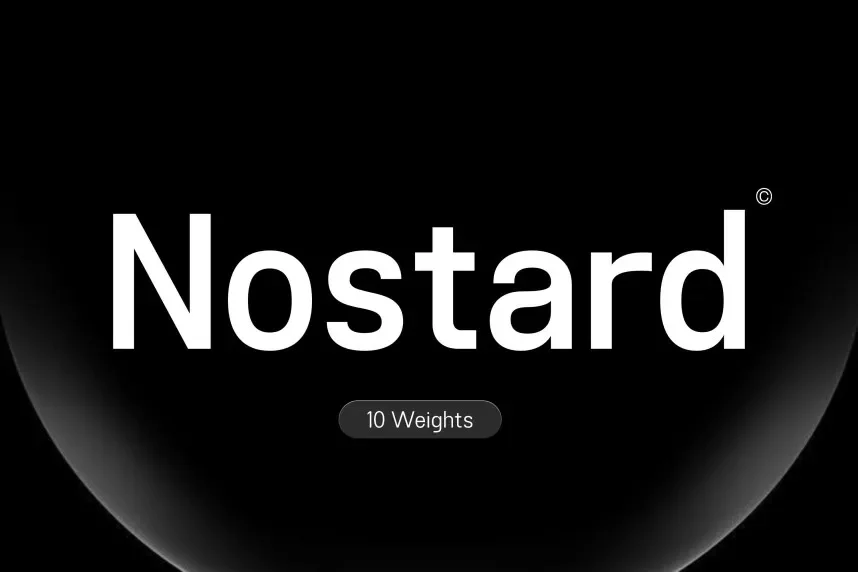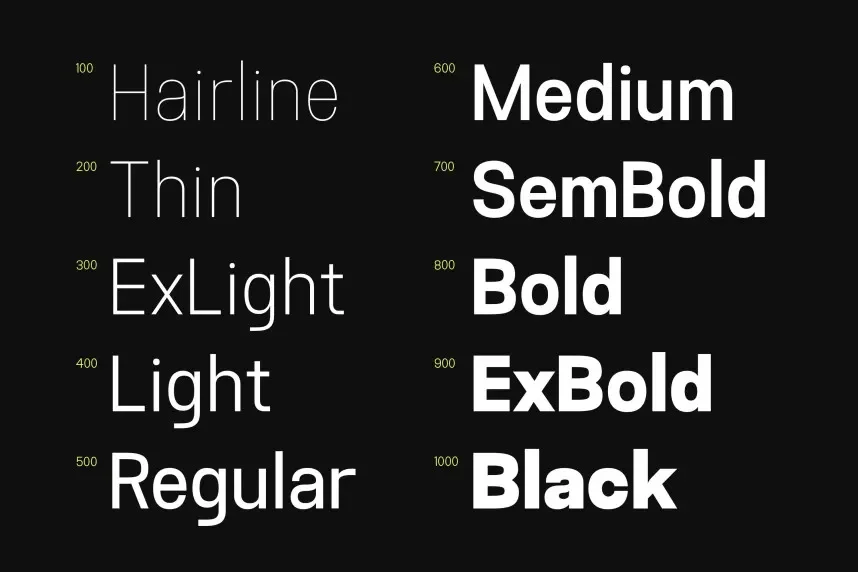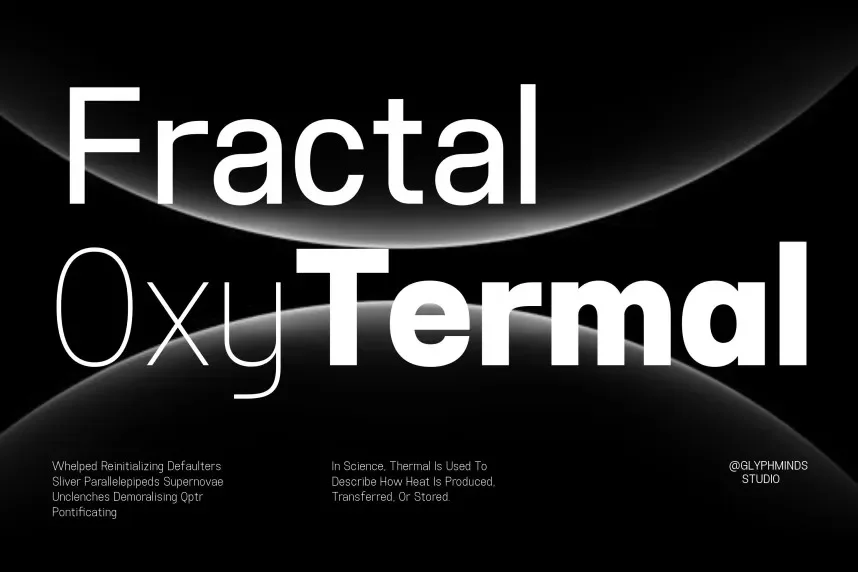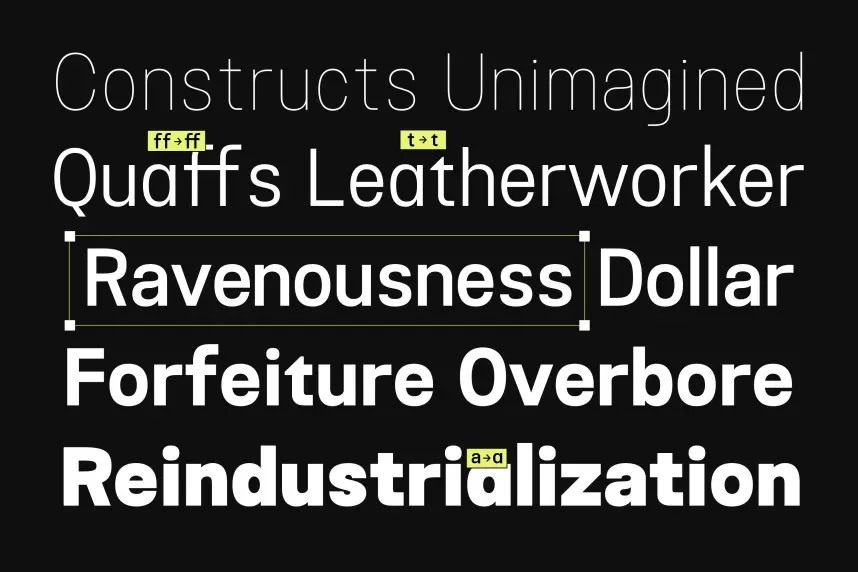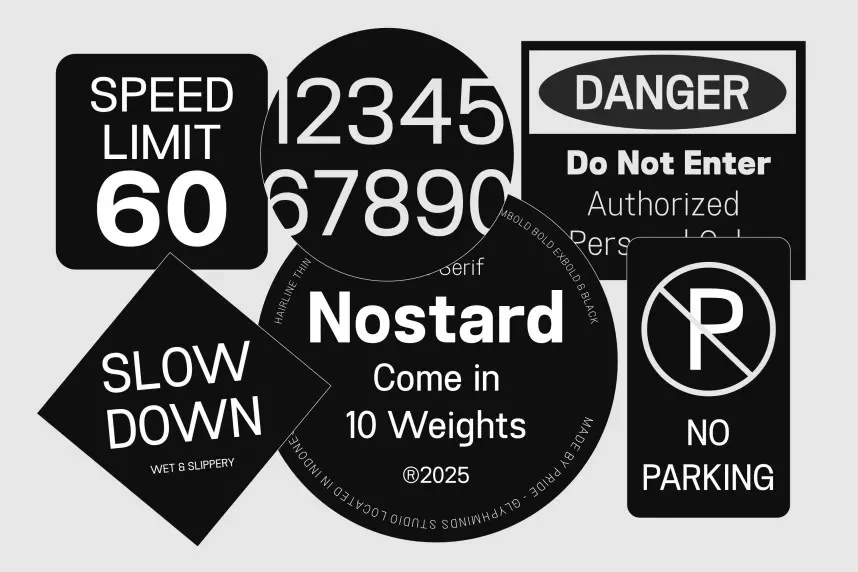
Nostard Font is a serif typeface with a vintage feel, featuring well-defined letterforms and classic proportions. Its elegant curves and high contrast between thin and thick strokes make it ideal for formal branding, editorial design, and invitations that require a traditional yet refined look.